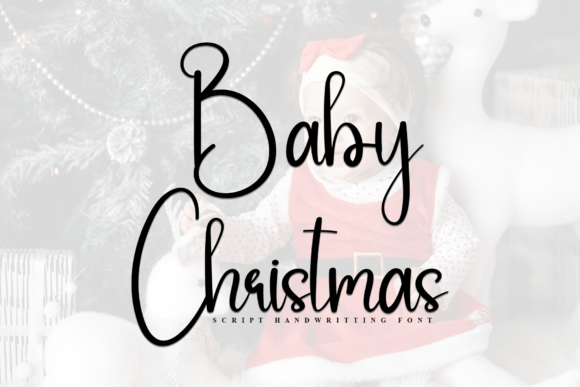
Unwrapping the Perfect Font for the Holiday Season
As a designer, there’s nothing quite like the thrill of discovering a new font that sparks inspiration for your next project. Maybe it’s a chance encounter on a design forum, or stumbling upon a font in a hidden corner of the internet. Whatever the case, the moment you lay eyes on the perfect font is one you’ll never forget.
For many of us, that moment came when we discovered the Baby Christmas Font – a charming, handwritten font that captures the essence of the holiday season. With its relaxed, sporty feel, this font is perfect for creating a luxurious and elegant look that’s still approachable and casual. Whether you’re designing branding materials, wedding supplies, or greeting cards, the Baby Christmas Font is sure to add a touch of magic to your work.
Baby Christmas Font Key Features
- Font Family: Baby Christmas Font is a unique, hand-drawn font designed to evoke the spirit of Christmas.
- Unique Characteristics: Features intricate, hand-drawn details and ornaments, making it perfect for creating festive and whimsical designs.
- Number of Glyphs: Includes a wide range of characters, including uppercase and lowercase letters, numbers, and special characters, to help you create visually appealing designs.
Designer Review: Baby Christmas Font
Overall, I’d say the Baby Christmas Font has a lot of charm to it. It’s a sweet, playful font that’s perfect for any holiday-themed project. ✨ The rounded edges and whimsical feel make it a great choice for creating a festive atmosphere.
One of the things I like about this font is its versatility. It can be used for a wide range of projects, from greeting cards to social media graphics. It’s also a great choice for creating a consistent brand identity.
- Charming and playful feel ✨
- Rounded edges and whimsical design ✨
- Perfect for holiday-themed projects ✨
- Great for creating a consistent brand identity ✨
- May not be suitable for formal or professional projects ⚠️
- Limited character set and language support ⚠️
- Some characters may not display correctly in certain fonts or systems ⚠️
Overall, I’d say the Baby Christmas Font is a great choice for any holiday-themed project, but it may not be the best option for more formal or professional projects. With a little creativity and experimentation, this font can add a lot of charm and personality to any design.
The Baby Christmas Font is perfect for adding a playful touch to your holiday designs. Use it to create festive invitations, decorations, and gift tags. You can also use it to add a personal touch to your holiday cards and gift wrapping.
Some tips for getting the most out of the Baby Christmas Font include:
- Using it in conjunction with other festive fonts for a layered look.
- Experimenting with different font sizes and colors to create a unique look.
- Using it to add a playful touch to your holiday designs.